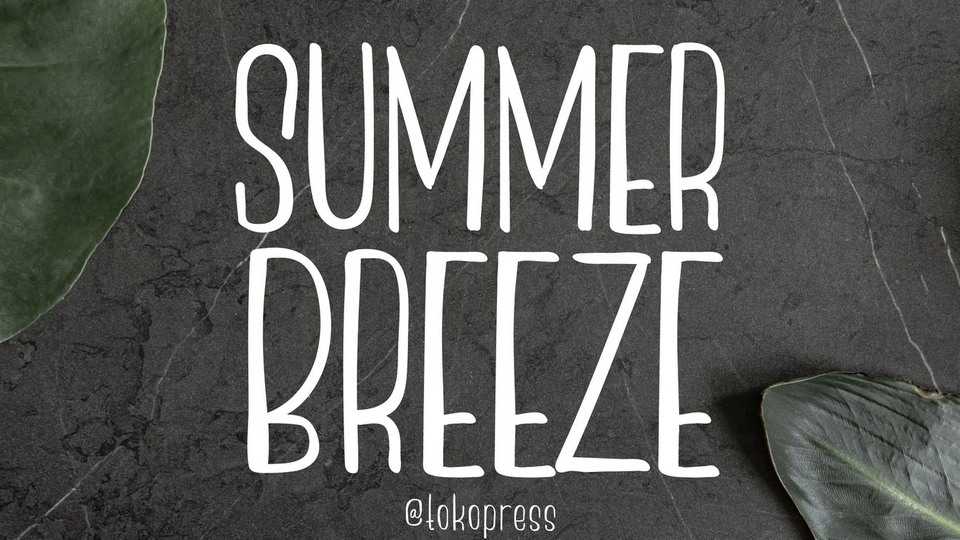
Download Summer Breeze font, a cute handwritten typeface. It brings elegance, beauty, and a calming ambience to the audience, just like the summer breeze.